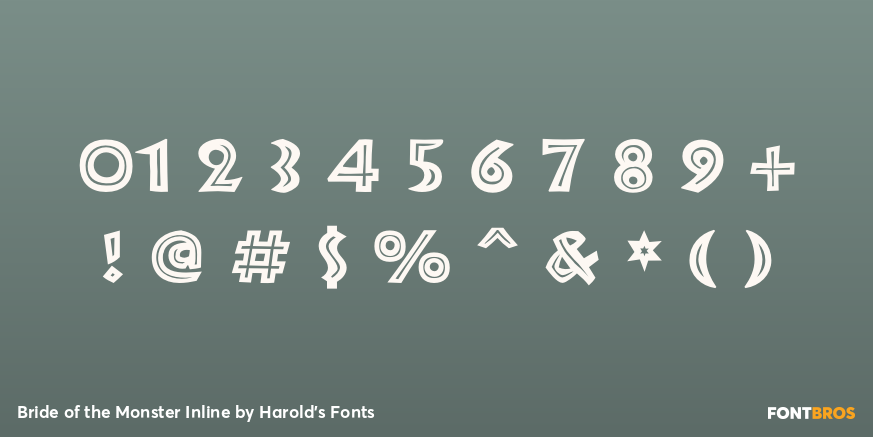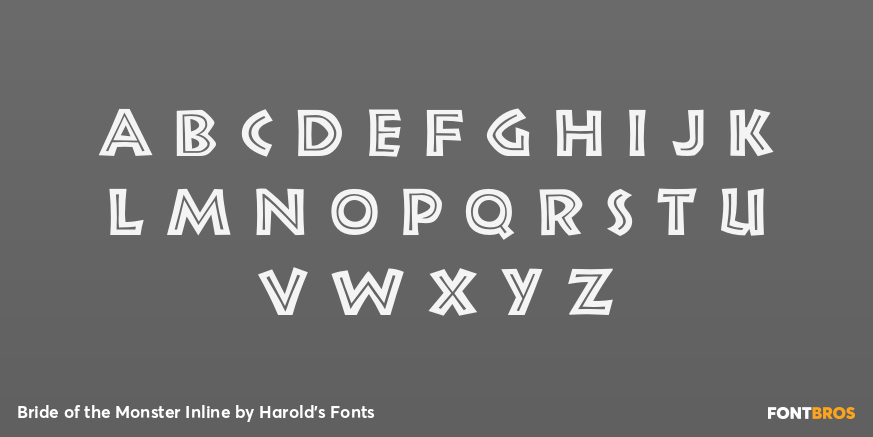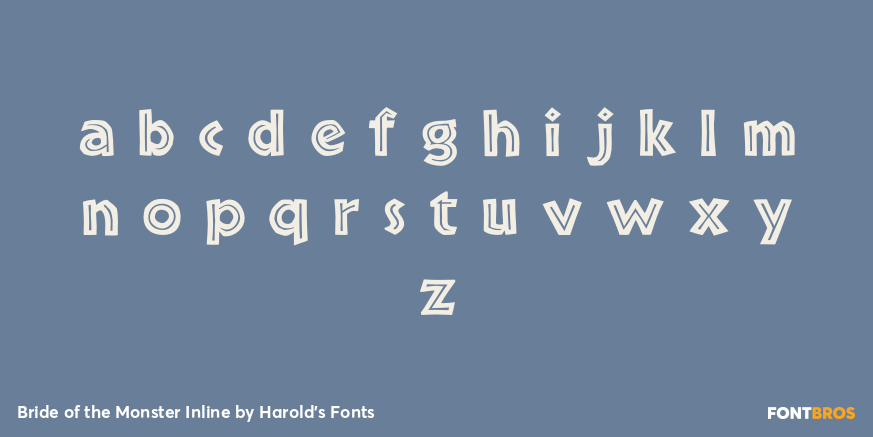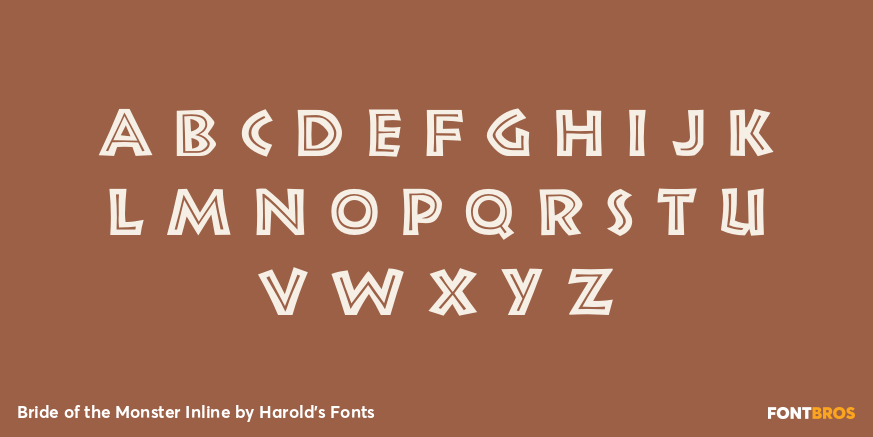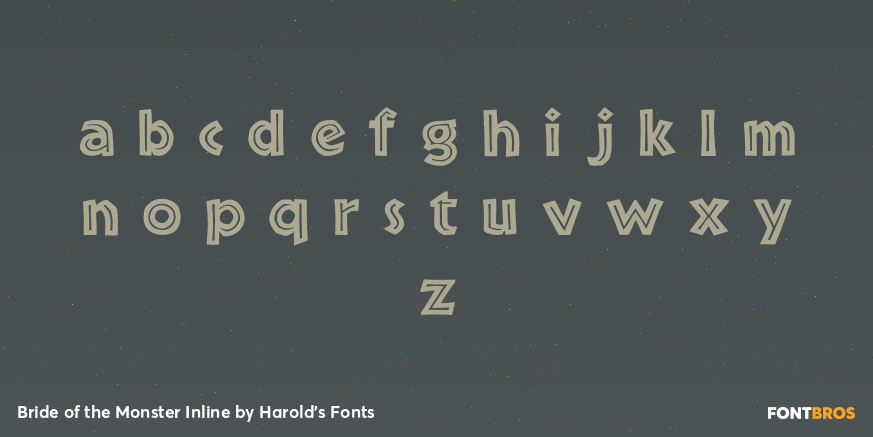
Bride of the Monster Inline
BRIDE OF THE MONSTER is a bold and rustic font that grabs your attention. Companion fonts offer eye-catching inlines or the look of stencils.
The uppercase was inspired by Rudolph Koch's classic Neuland from the 1920s, originally handcarved and still popular. From hand-lettered film titles of the 1930s, I got the idea to expand the style to lowercase.